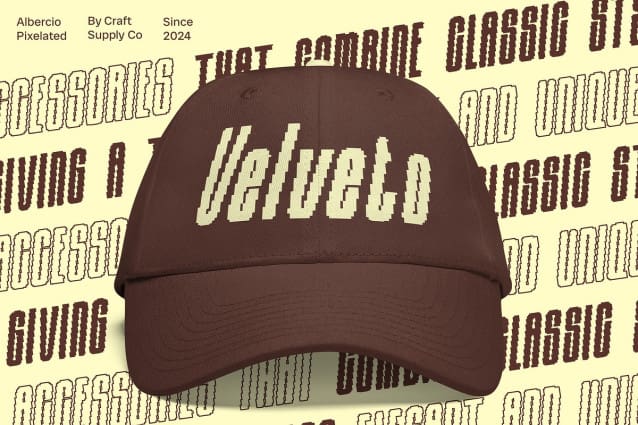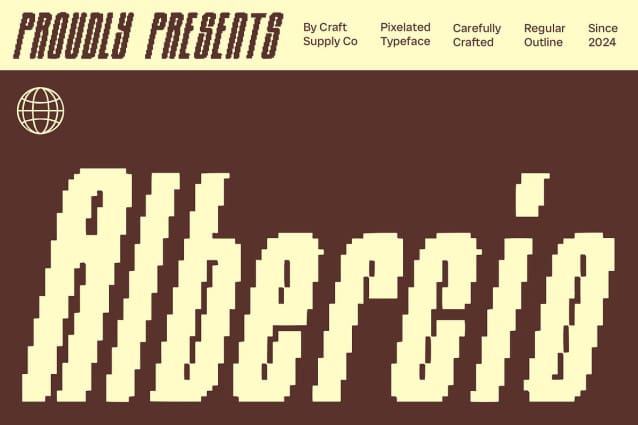
Albercio Pixel Font
Albercio Pixel Font is a modern sans serif font characterized by its condensed shapes and distinct pixel effect, merging minimalistic aesthetics with a nostalgic retro digital vibe. This font’s sleek and compact design ensures exceptional readability, making it a perfect choice for applications that require clarity in limited spaces, such as logos, posters, and promotional materials.
Compact Design for Enhanced Readability The condensed form of Albercio Pixel allows for more text to fit in tight spaces without sacrificing legibility. Its streamlined structure makes it ideal for various design contexts, where maximizing space is essential. Whether you’re crafting a bold logo or designing eye-catching posters, this font provides the clarity and impact needed to engage your audience effectively.
Pixel Effect for a Nostalgic Touch The unique pixel effect adds a layer of retro charm, reminiscent of 8-bit graphics and early digital designs. This nostalgic element creates a fascinating contrast between the font’s minimalist style and its visually complex textures. Albercio Pixel captures the essence of vintage computing while maintaining a contemporary feel, making it a versatile choice for modern projects with a playful twist.